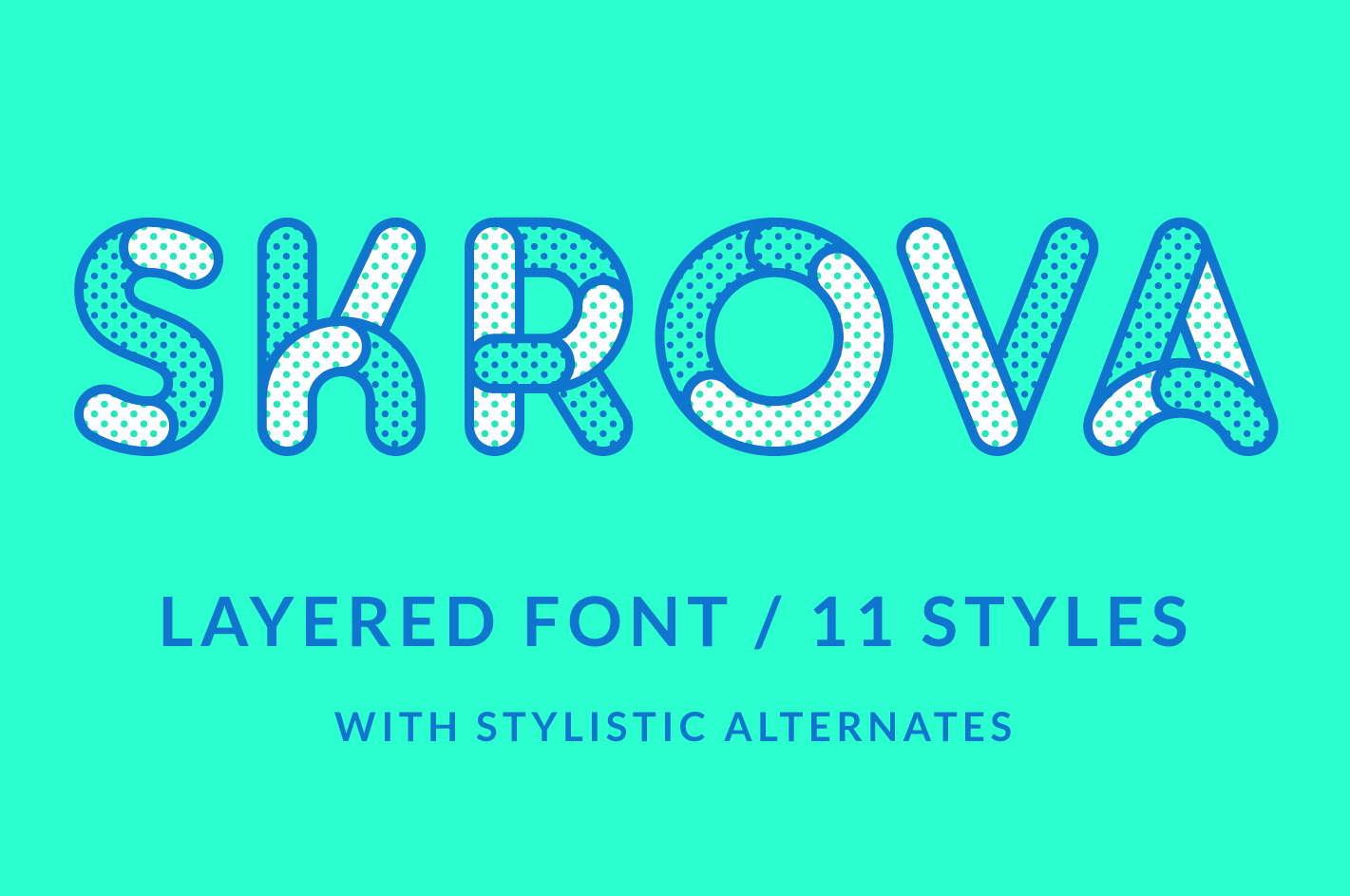
Skrova layered font
- Layered font
- Including 11 font styles
- All Western European accents
- Stylistic alternates
- Unicase characters, all uppercase and lowercase